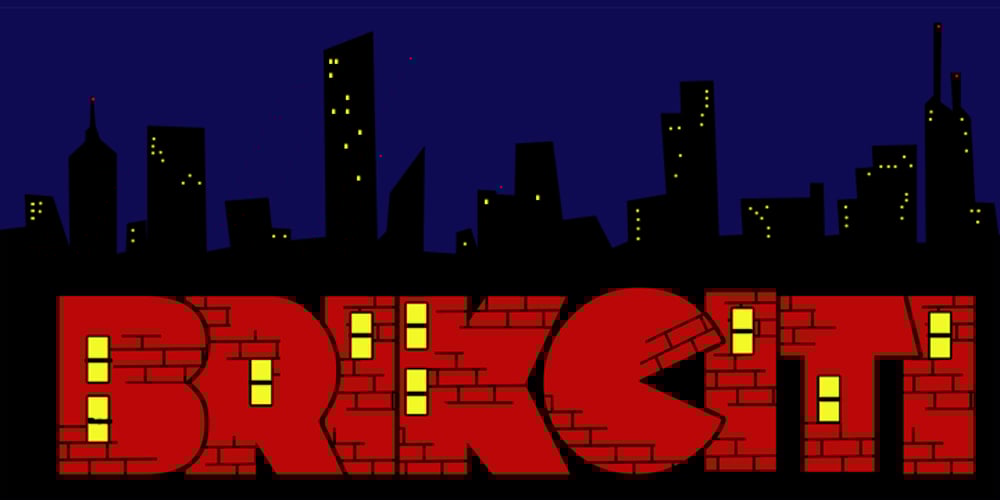
Brick City Font Family was designed by published by IC Fonts. Brick City contains 3 styles and family package options. This is a Cartoonish Brick Font that is reminiscent of some of the Brick Buildings you would see in the Inner Cities. Feel Free to add some graffiti to the brick wall to give it your own Graff City signature. It is also available in a 3d Brick Block Font.